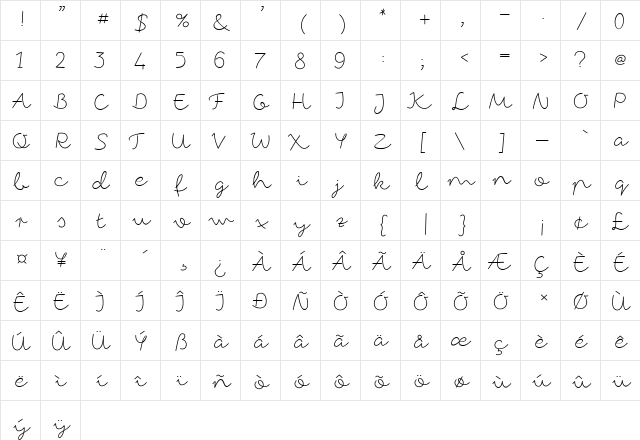
fox in the snow Regular
Design Context for fox in the snow Typeface
fox in the snow is a composed and adaptable typeface that performs quietly and consistently across a wide range of design contexts.